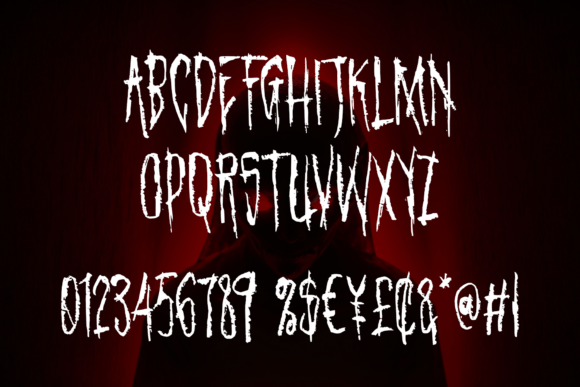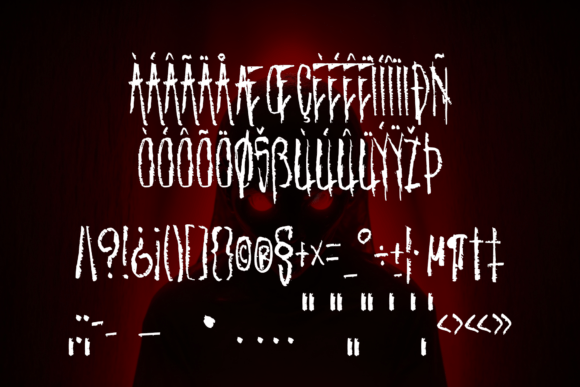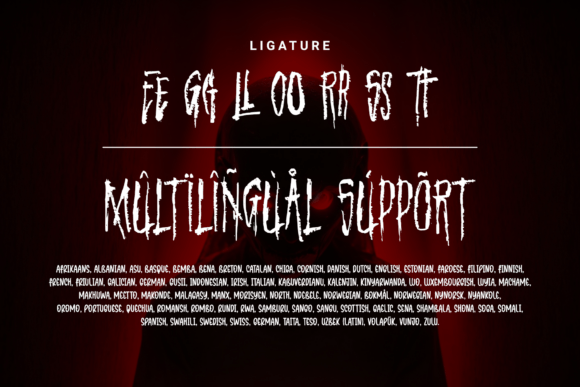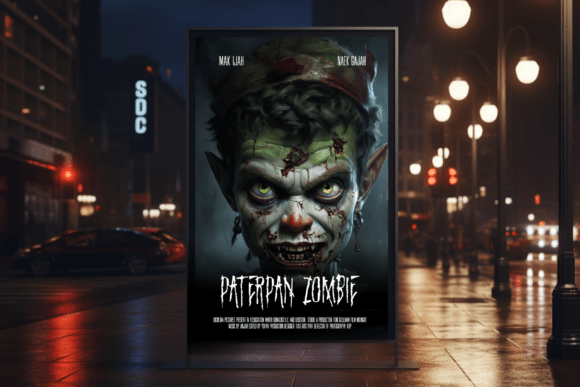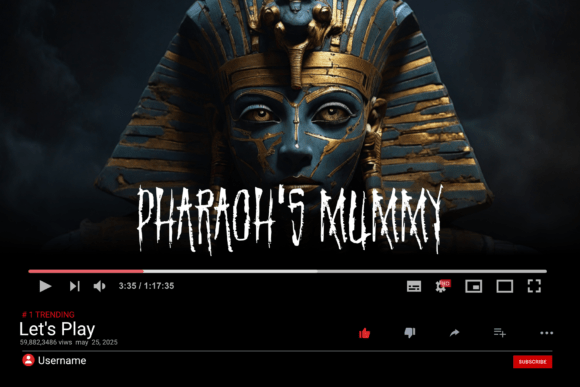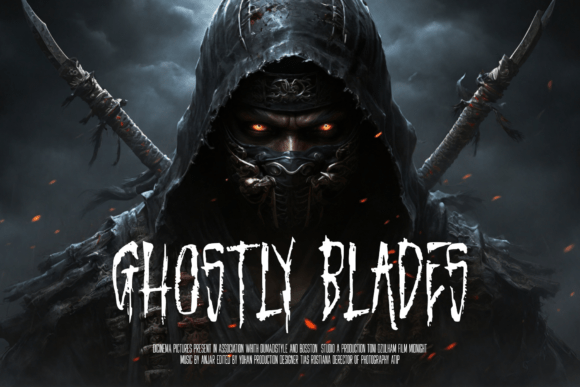
Introduction to Sawone Font Font
Fonts play a crucial role in design, and the Sawone Font font is a typeface that brings both character and versatility to any project. Whether you’re working on a branding project, a website, or a print design, the Sawone Font font offers a unique style that can elevate your work.
Sawone font, meticulously crafted with the Procreate Brush by the talented Toni Dzulham, embodies an eerie and unsettling essence, making it the perfect choice for horror-themed designs.
Specifically tailored for horror film titles, spine-chilling content creators, and ominous posters, Sawone captures the essence of fear with its hauntingly unique characters The intricately designed letterforms evoke a sense of dread and suspense, enhancing the overall impact of any horror-related project.
Key Features of Sawone Font Font
Why Choose Sawone Font Font?
The Sawone Font font is more than just a typeface – it’s a design tool that helps you communicate your message with style and clarity. Its unique character set and versatile design make it suitable for a wide range of applications, from elegant invitations to bold headlines.
With its carefully crafted letterforms and balanced proportions, the Sawone Font font ensures readability and visual appeal across all mediums.
What makes Sawone Font font special?
The Sawone Font font stands out with its unique design, exceptional readability, and versatility across various design applications.